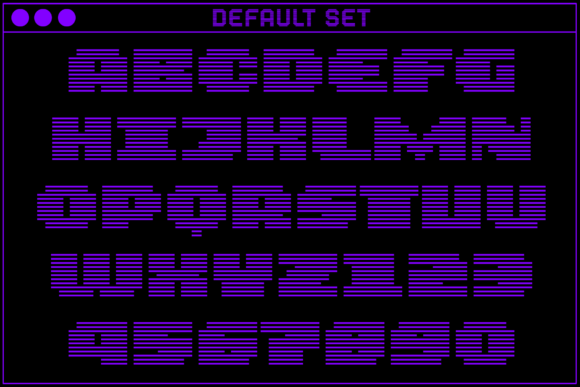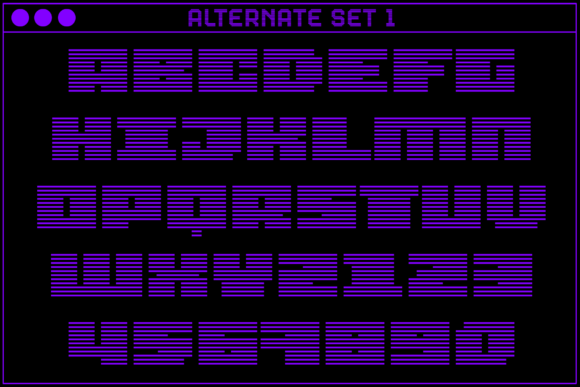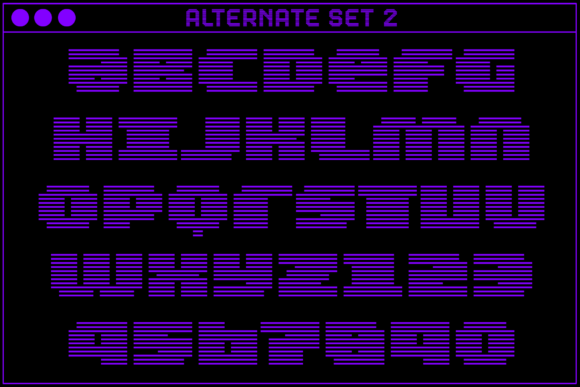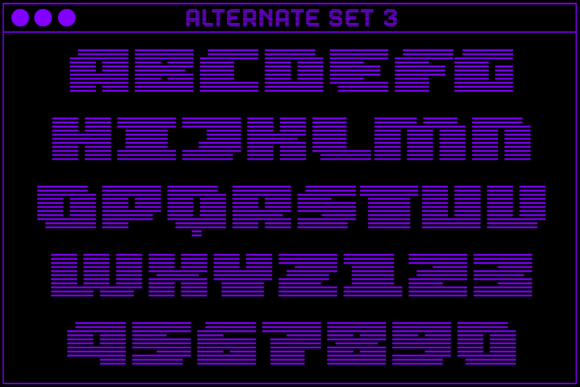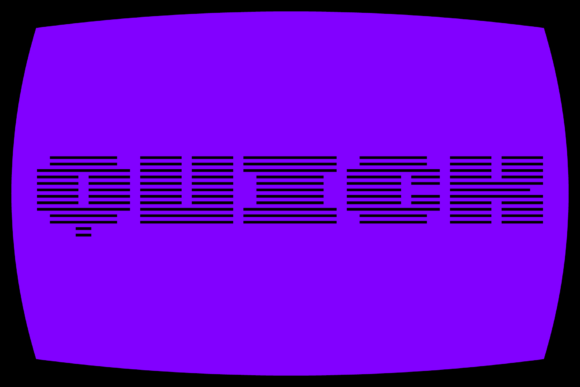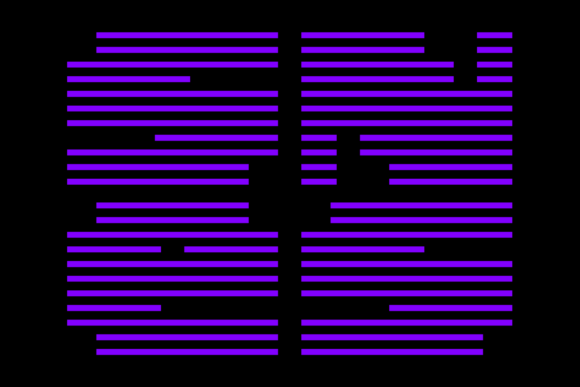
Introduction to MultiType Rows Display Wide Bold 3 Font Font
Fonts play a crucial role in design, and the MultiType Rows Display Wide Bold 3 Font font is a typeface that brings both character and versatility to any project. Whether you’re working on a branding project, a website, or a print design, the MultiType Rows Display Wide Bold 3 Font font offers a unique style that can elevate your work.
MultiType Rows Display Wide Bold 3 is a cool, uniquely shaped, pixelated display font.
Add a distorted and trendy touch to your designs with this unusual pixel font MultiType Rows Display Wide Bold 3 is PUA encoded which means you can access all glyphs and swashes with ease.
Key Features of MultiType Rows Display Wide Bold 3 Font Font
Why Choose MultiType Rows Display Wide Bold 3 Font Font?
The MultiType Rows Display Wide Bold 3 Font font is more than just a typeface – it’s a design tool that helps you communicate your message with style and clarity. Its unique character set and versatile design make it suitable for a wide range of applications, from elegant invitations to bold headlines.
With its carefully crafted letterforms and balanced proportions, the MultiType Rows Display Wide Bold 3 Font font ensures readability and visual appeal across all mediums.
What makes MultiType Rows Display Wide Bold 3 Font font special?
The MultiType Rows Display Wide Bold 3 Font font stands out with its unique design, exceptional readability, and versatility across various design applications.